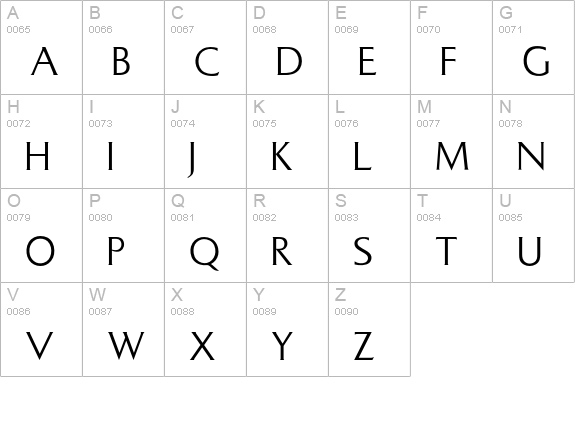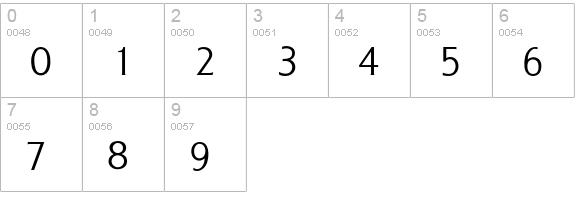
Marina font is a modern and stylish typeface that is sure to catch the eye of designers and typographers alike. Its sleek and elegant curves give any project a sophisticated and professional look. With its clean lines and smooth edges, Marina font is perfect for a wide range of design applications, such as logos, branding, headlines, and more. What sets Marina font apart from other fonts is its versatility and adaptability. It can be used in both digital and print formats, making it a great choice for any project that needs a touch of elegance. Whether you're designing a website, creating a brochure, or crafting a social media post, Marina font will surely enhance your design and make it stand out. One of the best things about Marina font is that it is freely available to download at FontsMarket.com. This means that you can easily access this stunning font without any cost. FontsMarket.com is a trusted source for high-quality fonts, and Marina font is no exception. By downloading Marina font from FontsMarket.com, you can be confident that you are getting a reliable and professionally designed font that will elevate your designs to the next level. Overall, Marina font is a must-have for any designer or typographer looking to add a touch of elegance and sophistication to their projects. Its sleek and modern design, versatility, and availability for free download at FontsMarket.com make it a valuable asset in any designer's toolkit. Don't miss out on the opportunity to enhance your designs with Marina font – get it today and take your projects to new heights.